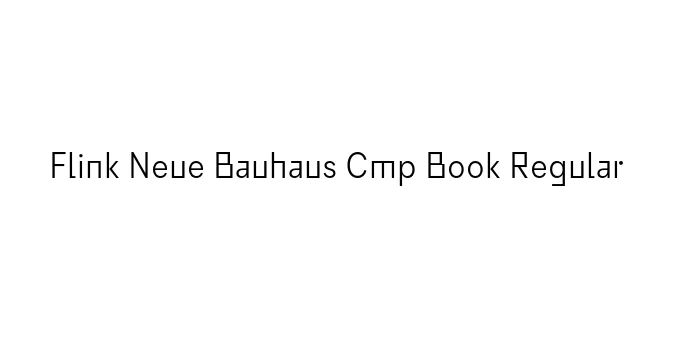
Flink Neue Bauhaus Cmp Book Regular
Designed by TypeMates (Nils Thomsen, Jakob Runge, and Lisa Fischbach)
Flink Neue Bauhaus Cmp Book Regular is a sophisticated geometric sans-serif that pays homage to the functionalist principles of the Bauhaus movement. Developed by the renowned foundry TypeMates, this typeface merges mathematical precision with modern aesthetic requirements. The 'Cmp' (Compressed) width variant is specifically engineered to offer a compact footprint without sacrificing the open counters and legibility that define the Flink family, making it an essential tool for high-density design environments.
This font stands out due to its minimalist construction and perfectly circular forms, which provide a clean, architectural feel to any layout. It is particularly effective in settings where clarity and a forward-thinking attitude are required. From corporate identities to avant-garde editorial projects, Flink Neue Bauhaus Cmp Book Regular delivers a timeless look that bridges the gap between early 20th-century modernism and contemporary digital design standards.
Flink Neue Bauhaus Cmp Book Regular Best Uses
Perfect for creating sleek, authoritative corporate identities and logos.
Well-suited for structured magazine layouts and sophisticated typography.
Provides a clean and legible interface for modern minimalist websites.
The geometric forms make for striking and readable display headlines.